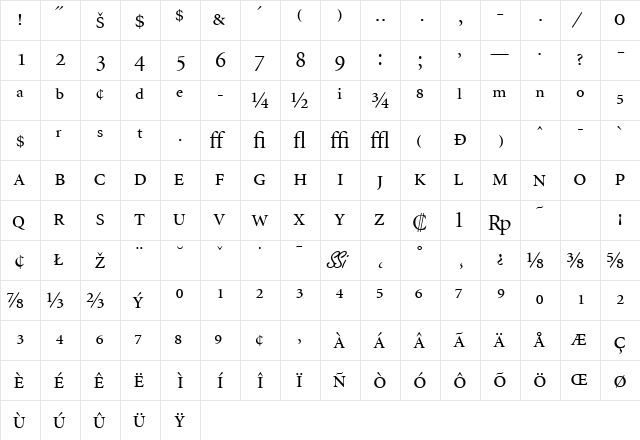
AtlantixProDisplaySSK Regular
Design Context for AtlantixProDisplaySSK Typeface
AtlantixProDisplaySSK is built around its visual character rather than neutral utility — its distinctive forms are designed to make an impression at display sizes.
Font Pairing: Pair with a clean neutral sans-serif for body copy to let AtlantixProDisplaySSK's character lead without overwhelming the composition.
Pro Tip: Use AtlantixProDisplaySSK exclusively at display sizes — it was designed to be seen, not read at length. Let a neutral companion handle body copy.